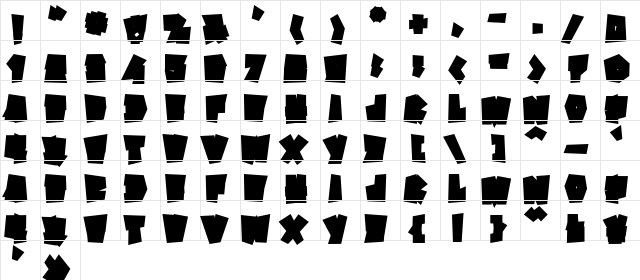
SPOOKY MONSTER BASE Regular
| Foundry | Creativework69 Studio |
| Designer | Daddi Daryawan |
Design Context for SPOOKY MONSTER BASE Typeface
SPOOKY MONSTER BASE is a composed and adaptable typeface that performs quietly and consistently across a wide range of design contexts.